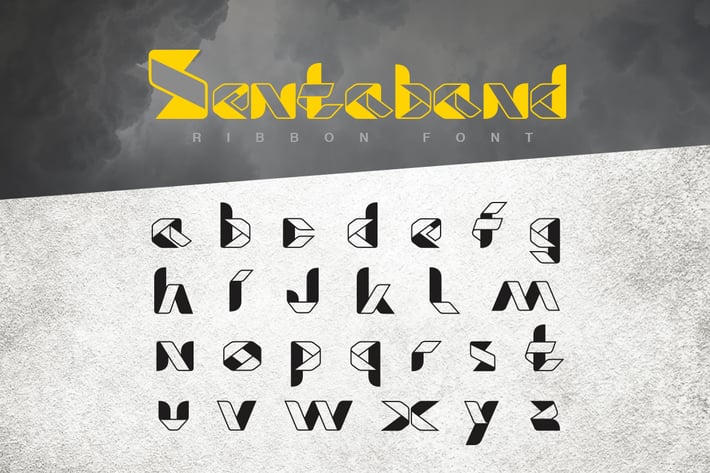
Sentaband Font
Sentaband typeface is unusual font made of bended ribbon. Good-looking as headers or short words. Glyphs included.
Use it for Sports, Commercial, Art etc. areas.